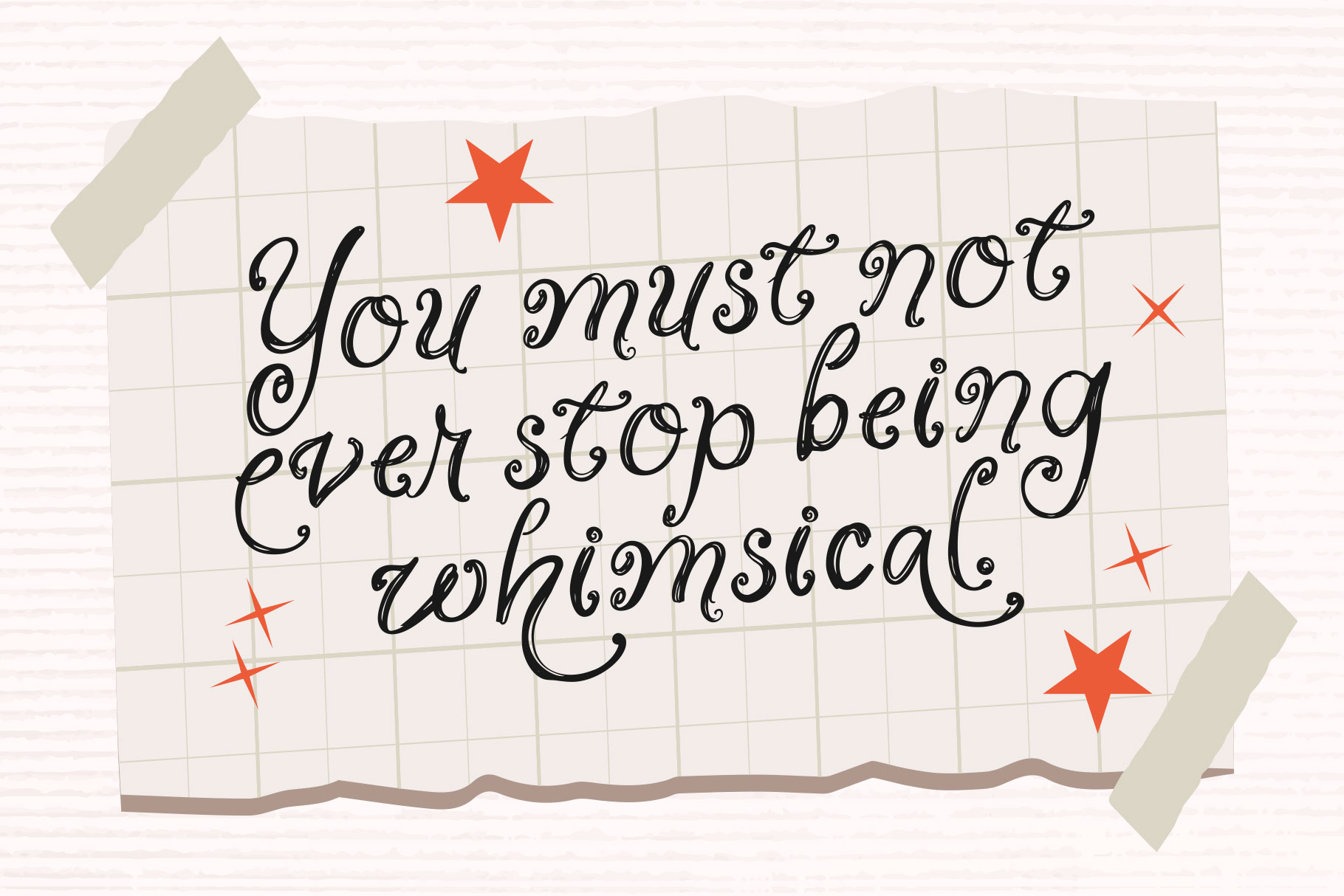
Shanetty is handwritten curly font combines expressive brush-like strokes with elegant, playful curves, creating a distinctive personality that feels artistic, romantic, and effortlessly charming
Shanetty Handwritten Curly Font